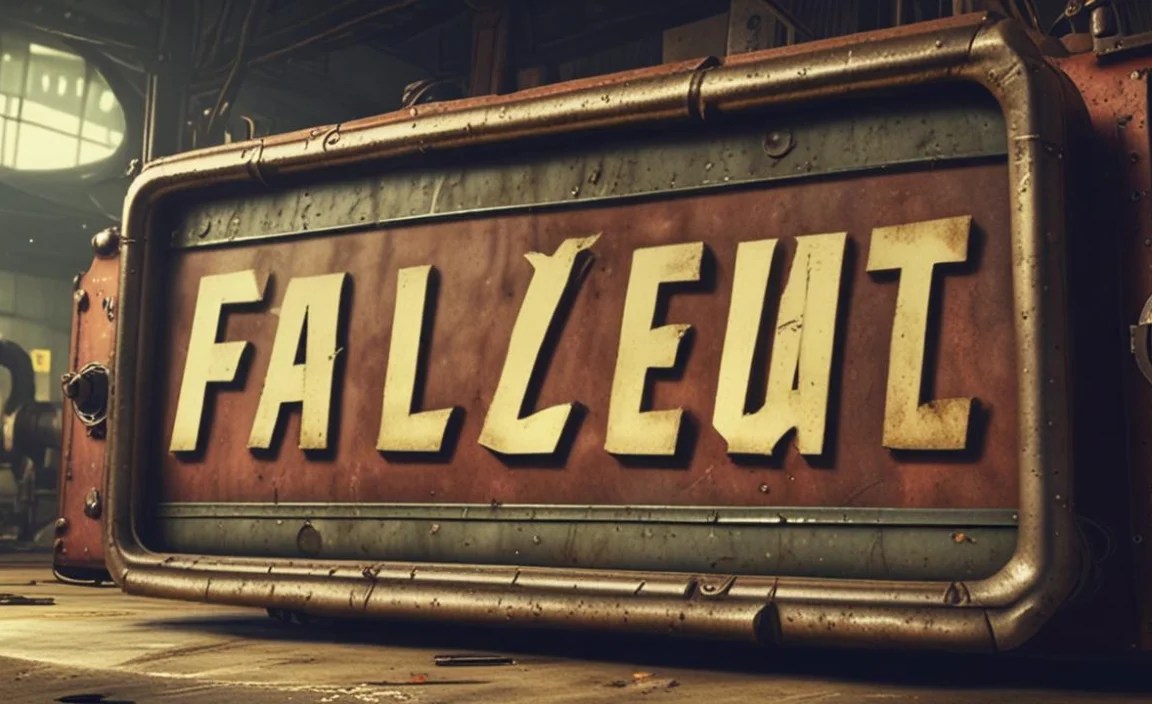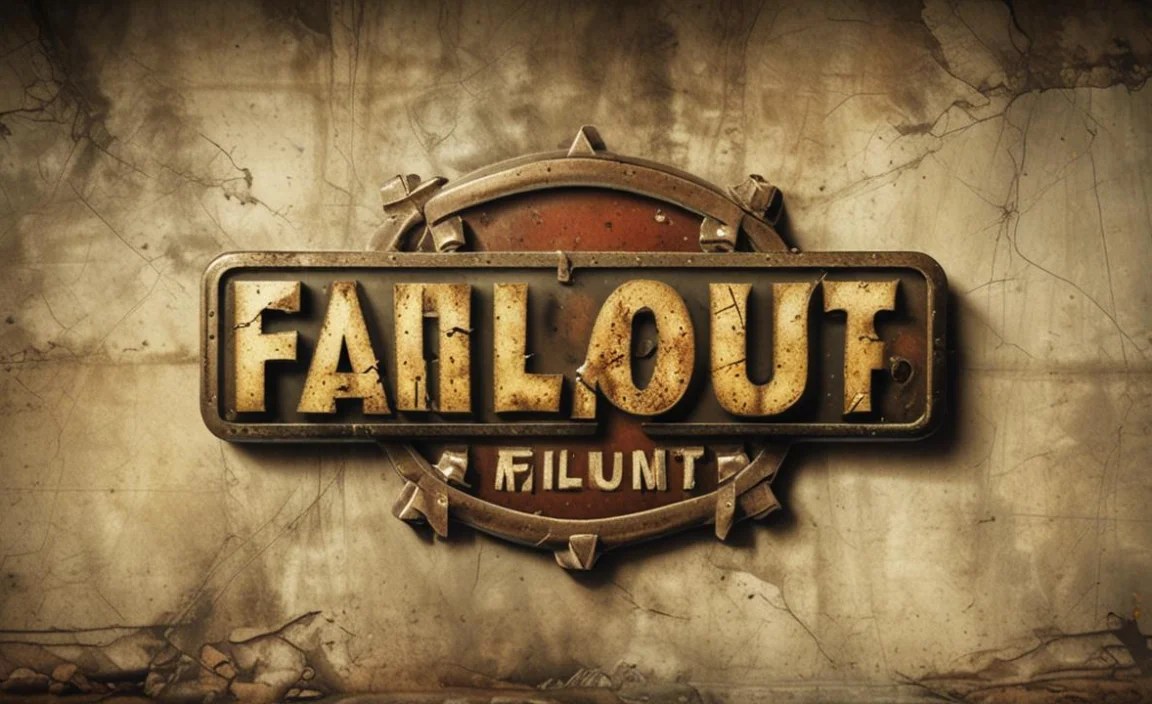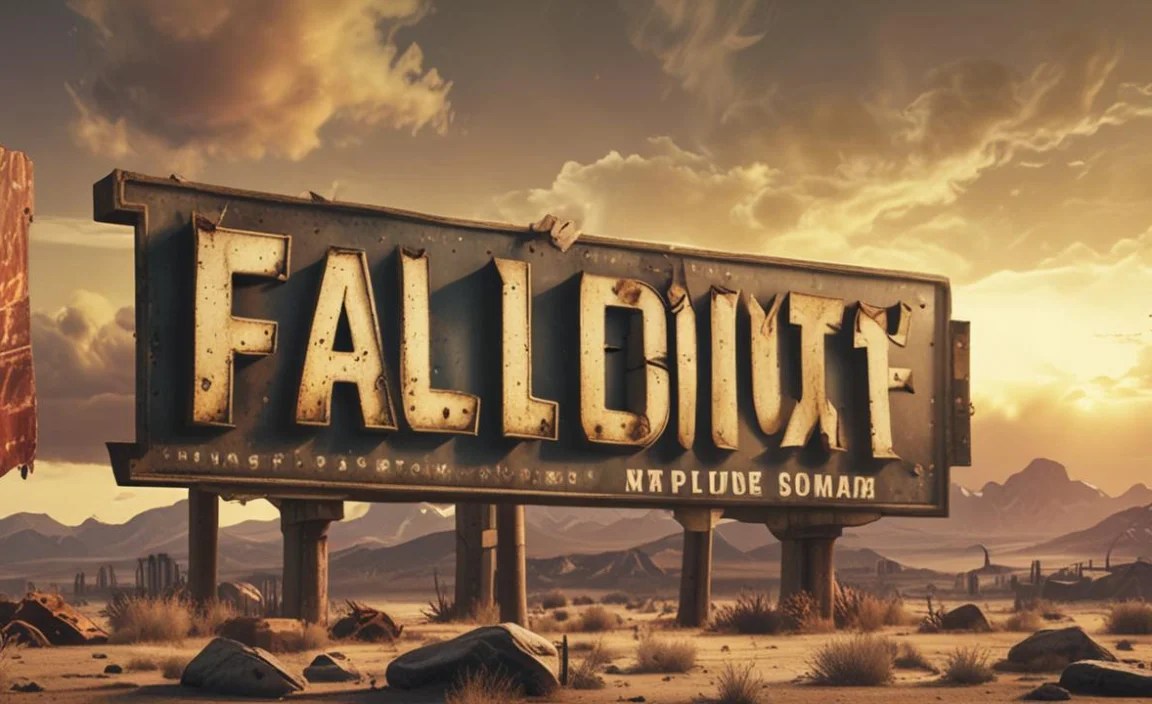
Fallout is an open-world role-playing video game series developed by Interplay Entertainment. The first game debuted in 1997. The font featured in the Fallout logo closely resembles Overseer, which Neale Davidson created. This font includes uppercase and lowercase letters and most punctuation and diacritical marks.
The Fallout Font stands out in various design projects, especially those looking to capture a retro-futuristic or post-apocalyptic vibe. Designers often use it in:
- Video Game Titles
- Movie Posters
- T-shirt
- Merchandise Design
- Website Headers
- Social Media Graphics
- Event Banners
1. What Are The Future Trends for Fallout Font?
Fallout Font will likely continue gaining traction in retro-inspired and dystopian-themed projects as these genres remain popular in media and design.
2. When Was The Fallout Font Created?
The Fallout Font gained recognition with the release of the original Fallout game in 1997, with the font style evolving throughout the series.
3. What Free Font Resembles Fallout Font?
Atomica and Nuketown offer similar retro-futuristic aesthetics and can be used as free alternatives to Fallout Font.
4. Why Do Designers Choose The Fallout Font?
Designers choose the Fallout Font for its distinctive retro-futuristic appeal, making it perfect for projects that evoke the feel of post-apocalyptic or nostalgic themes.
5. What Are The Different Versions Of Fallout Font?
The Fallout Font family offers Regular, Bold, Italic, Heavy, and Outline versions, allowing designers flexibility for various design needs.